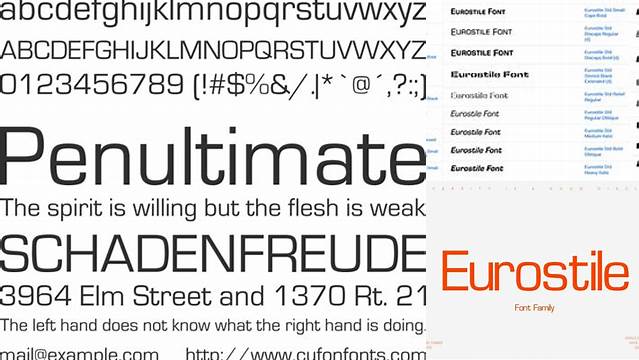
Hey guys! Are you on the hunt for a sleek, modern typeface that screams professionalism and a touch of retro flair? Look no further! Today, we're diving deep into the Eurostile STD font family, a timeless classic that's been a go-to for designers and creatives for decades. And the best part? We'll guide you on how to get it for free! This comprehensive guide will cover everything you need to know about Eurostile STD, from its history and characteristics to where you can safely and legally download it. So, buckle up, and let's explore the world of this iconic font!
What is Eurostile STD? The Basics
Eurostile STD isn't just a font; it's a statement. Designed by Aldo Novarese and published by Linotype, Eurostile is a geometric sans-serif typeface known for its bold, clean lines and distinctive appearance. Imagine a font that's both futuristic and familiar, versatile enough for everything from headlines to body text, and you've got Eurostile. Its roots trace back to the late 1960s, making it a product of the modernist design era. Its name, a mash-up of “European” and “style,” hints at its international appeal and its sleek, modern design. This typeface quickly gained popularity among designers because of its versatility, readability, and striking visual impact. It's frequently used in branding, advertising, and editorial design, adding a touch of sophistication and modernity to any project. The font's clean, geometric shapes provide a sense of order and efficiency, which is why it's often seen in tech companies, government institutions, and other organizations that want to convey trust and reliability. Its distinct appearance makes it easily recognizable and memorable, helping brands to establish a strong visual identity.
Eurostile STD comes in a variety of weights, including regular, bold, and extra bold, providing a range of options for different design needs. Each weight maintains the same geometric style, ensuring consistency across all applications. This flexibility allows designers to create visual hierarchies and emphasize key information, making it an excellent choice for headings, subheadings, and body text. The typeface's wide character set also supports various languages, making it a global choice for design projects. Its compatibility with different design software further enhances its usability, making it a seamless integration into any workflow. Moreover, Eurostile STD's timeless design ensures it remains relevant and stylish, no matter the current design trends. This longevity makes it a valuable asset for designers looking for a font that can withstand the test of time. The font's versatility in different design contexts and its modern aesthetic are the reasons for its sustained popularity. Its ability to communicate a sense of professionalism and modernity makes it a preferred choice for many designers worldwide. Whether it's for a website, a print advertisement, or a corporate identity project, Eurostile STD can elevate the visual appeal and effectiveness of any design.
Why Choose Eurostile STD?
Alright, so why should you choose Eurostile STD? Well, apart from the fact that it's a design icon, there are plenty of reasons. The font’s geometric design provides excellent readability, which is a huge plus when you're aiming for a clean and clear message. Its clean lines and straightforward design make it perfect for conveying a sense of professionalism and modernity. This is why it's a go-to choice for brands and organizations that want to project an image of reliability and efficiency. Its versatility is another major selling point. It works brilliantly in both headlines and body text, making it incredibly flexible for a wide array of design projects. You can use it for branding, website design, posters, and even presentations. The font family also offers various weights, so you can add visual hierarchy to your design, making some text stand out while maintaining consistency throughout the project. Strong and clear designs are what people are looking for, and Eurostile delivers that with its geometric design. In addition to its aesthetic appeal, Eurostile STD is also highly legible. Its distinct letterforms are easy to read, ensuring that your message is clearly understood by your audience. This readability is especially important for body text, where the clarity of the font can significantly impact the overall user experience. The font's geometric shapes contribute to this readability, providing a clean and uncluttered appearance that makes the text easy on the eyes. It's not just about looking good; it's about making sure your audience can effortlessly consume your content. This combination of style and function makes Eurostile STD a standout choice in a crowded design landscape. Its ability to maintain visual clarity while conveying a strong message is what sets it apart, allowing designers to create impactful and effective designs. Its popularity stems from its enduring appeal and its ability to enhance the visual communication of any project.